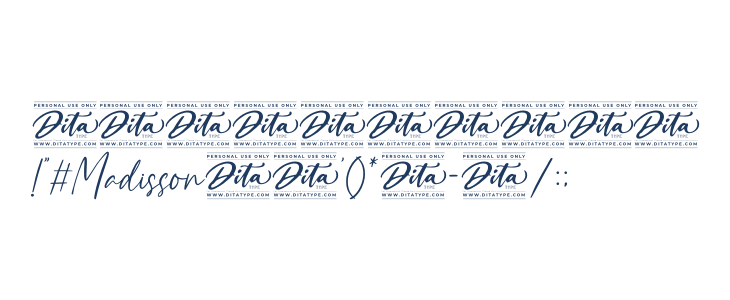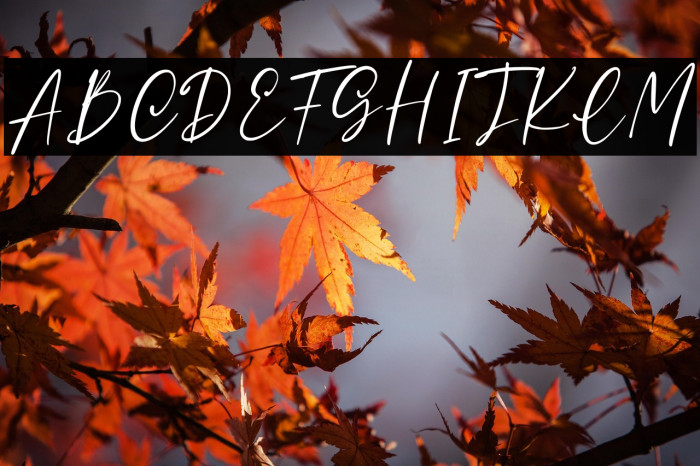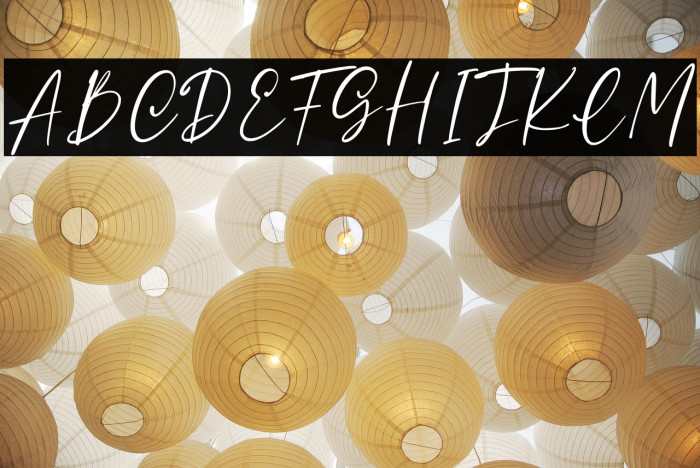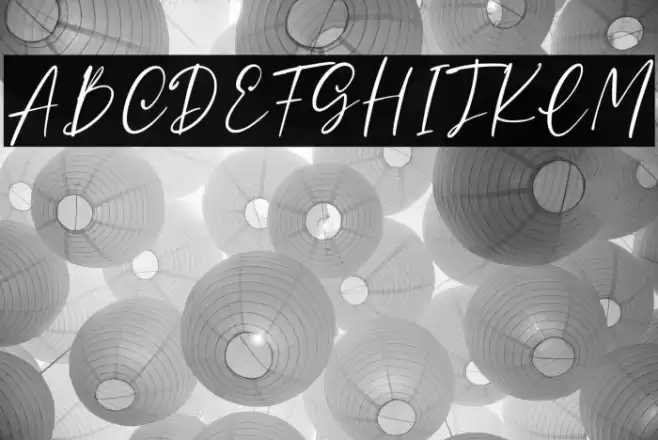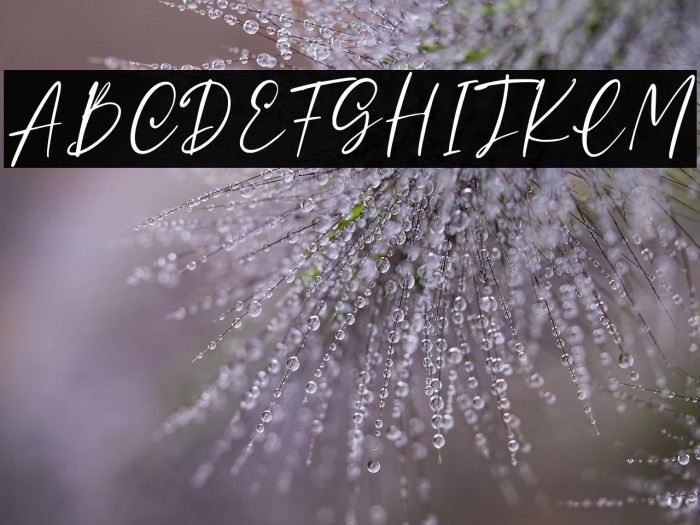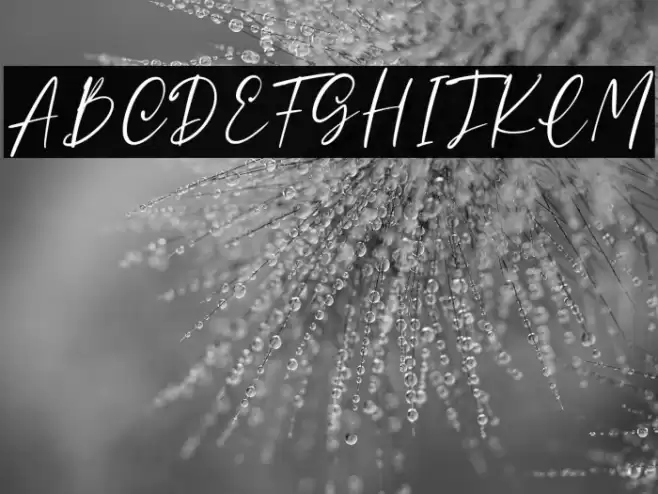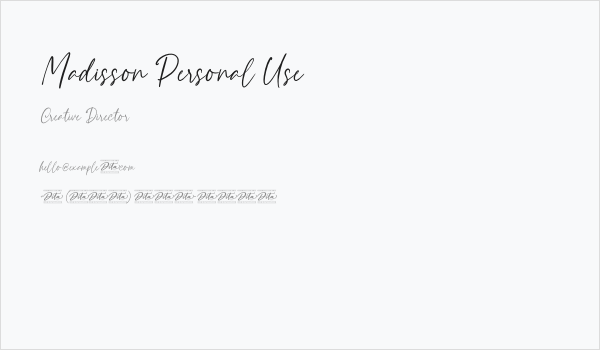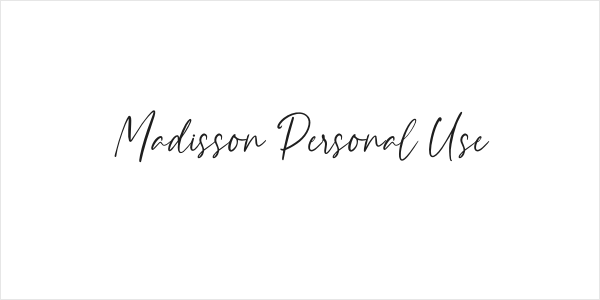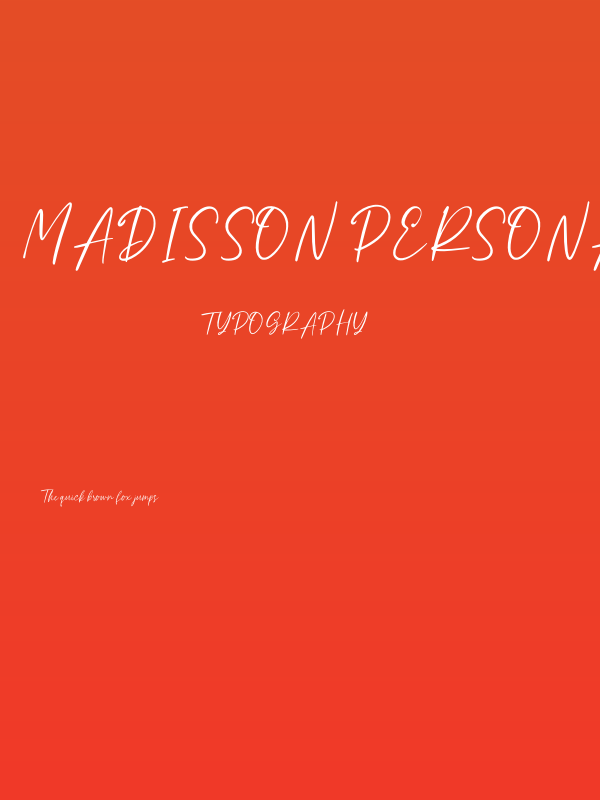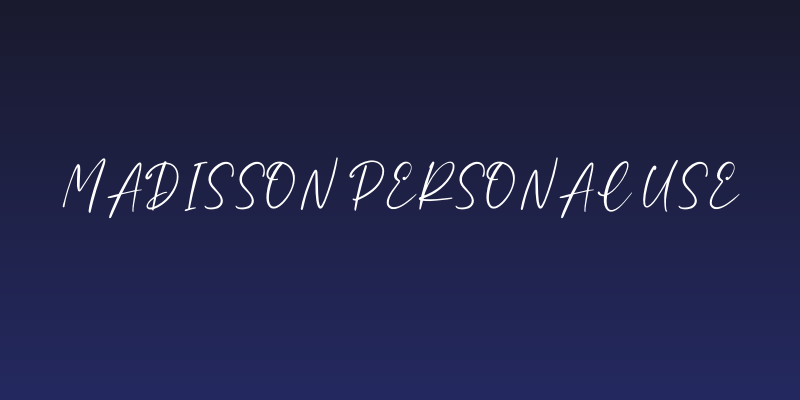
Madisson Personal Use Font
Madisson Personal Use Description
This font exudes a modern and elegant handwritten style, characterized by its fluid and cursive letterforms. The uppercase letters are tall and slightly narrow, with a consistent slant that adds a dynamic flow to the text. The lowercase letters maintain a smooth and connected appearance, enhancing the script-like quality. The strokes are moderately thick, providing a balanced contrast that ensures readability while maintaining an artistic flair. The font includes a full set of uppercase and lowercase letters, numbers, and a selection of special characters, making it versatile for various design needs.